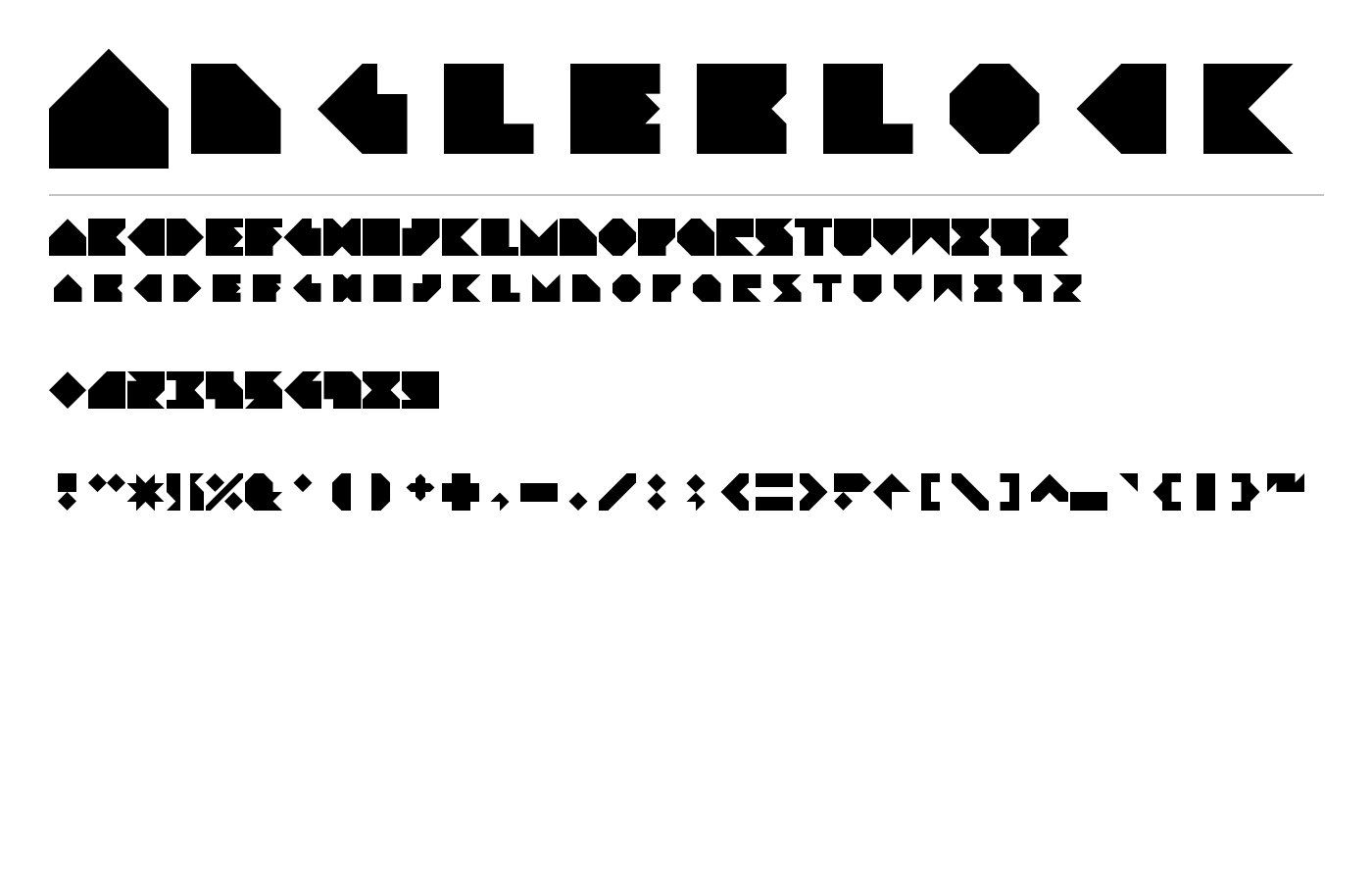
Angleblock is a bold, geometric sans serif font defined by its sharp angles and blocky shapes, giving it a futuristic and abstract appearance. Its heavy weight and condensed width create a strong, impactful presence perfect for eye-catching headlines, logos, and modern design projects aiming for a distinct, avant-garde style. This font works well where uniqueness and a striking visual statement are key, rather than for body text or long reads.
Angleblock Font
About Angleblock Font